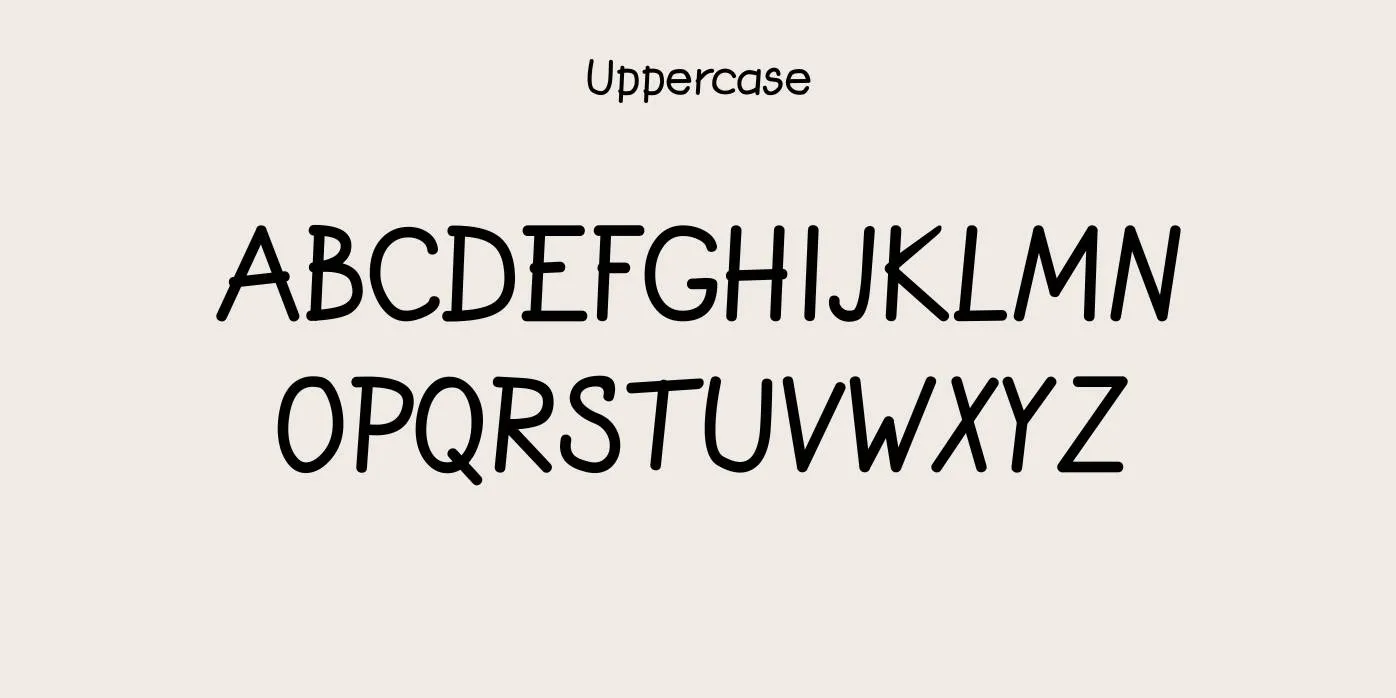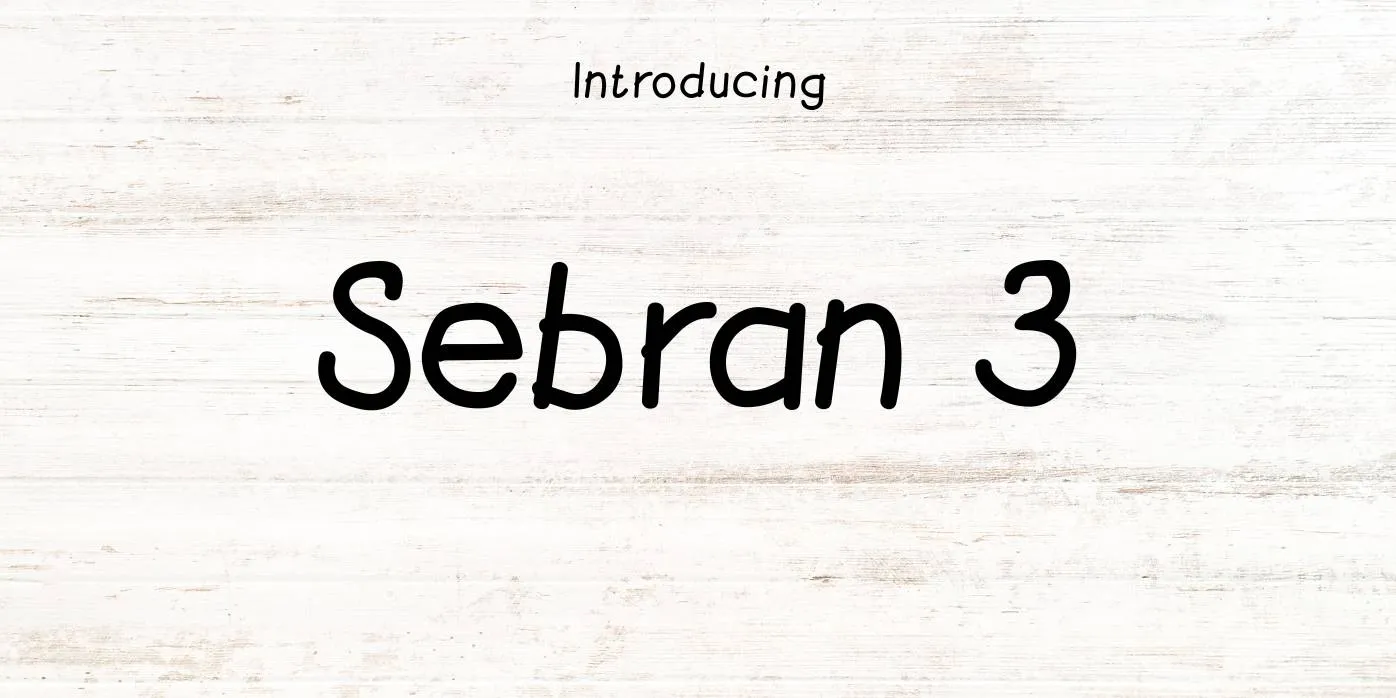
Sebran 3 Font
Here, you will get an amazing handwritten type texture. Marianne Wartoft designed this texture. Sebran 3 Font is a good-looking font as it contains characters that are thin, disciplined, and stylish. An online generator tool for this texture is also available.